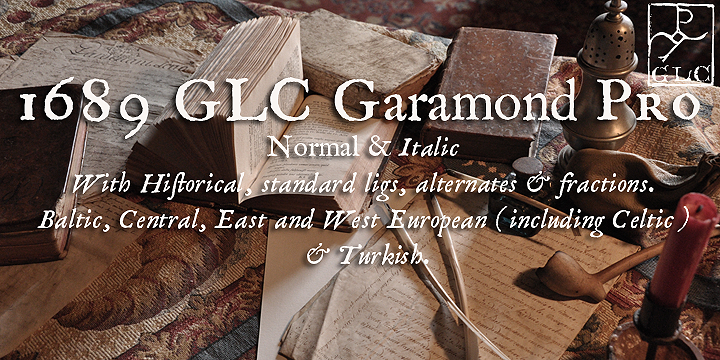
The 1689 GLC Garamond Pro Font is perfect for historical publications, classical literature editions, academic manuscripts, museum exhibition materials, heritage brand identities, traditional book publishing, historical documentaries, and scholarly journal layouts. This distinguished typeface excels in projects for universities, publishing houses, museums, historical societies, and organizations requiring authentic period typography that conveys scholarly authority, historical accuracy, and timeless literary elegance.
What makes the 1689 GLC Garamond Pro Font exciting is its meticulous recreation of 17th-century French typographic excellence with contemporary digital precision and historical authenticity. The font features classical letterforms based on Claude Garamond's original designs from 1689, capturing the elegant proportions and refined craftsmanship of French Renaissance typography. Its historical character and scholarly gravitas make it perfect for projects requiring genuine period accuracy and literary distinction. The font's timeless beauty and cultural heritage transform modern texts into historically significant documents.
The 1689 GLC Garamond Pro Font family includes historically-accurate variations: Regular, Italic, Bold, Small Caps, and Display versions, each faithfully reproducing period typography standards. Each style maintains authentic historical proportions while offering comprehensive character sets including old-style numerals, historical ligatures, and period-appropriate ornaments. The family also features extensive language support and scholarly typography features essential for academic and historical publishing.
Whether you're developing heritage brand identities, creating scholarly publications, or designing historically-informed promotional materials, the 1689 GLC Garamond Pro Font Free Download provides the ultimate solution for projects requiring authentic historical typography. This exceptional typeface brings genuine French Renaissance elegance to contemporary design work, making it an essential resource for designers celebrating literary heritage, scholarly excellence, and the enduring beauty of classical European typography.